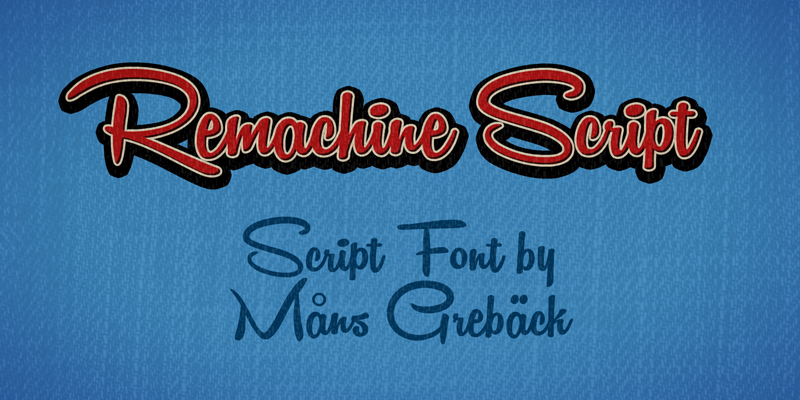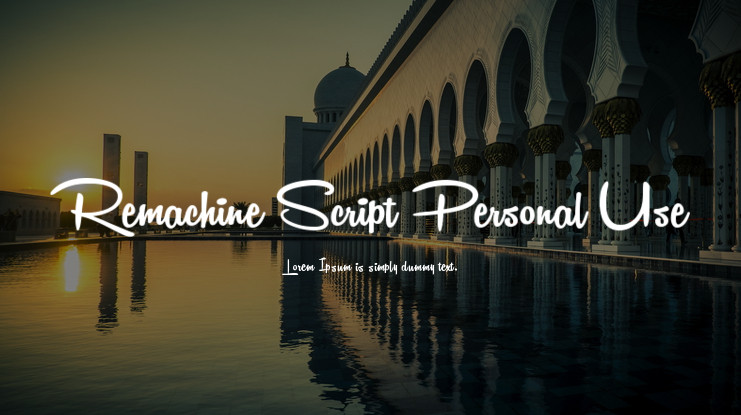
Remachine Script Font
Right here is the Remachine Script Font this is widely used in adobe. This is a subway typeface that is similar to the bakery font. This typeface is listed inner google fonts. A well-known content author took the all becoming for this lovely typeface.
And he plays it for them receives the content cloth situation appearance fashionable. He has were given the idea of if you need to decorate issued due to the reality. On this manner, it in truth electricity on the types of the t-shirts internet net page. Remachine Script Font Free Now that you may moreover be called it the new edition of the sesame barlow font.
The general public of the designers had been using it for their very private systems. And some others are taking it as a concept for making new typefaces.